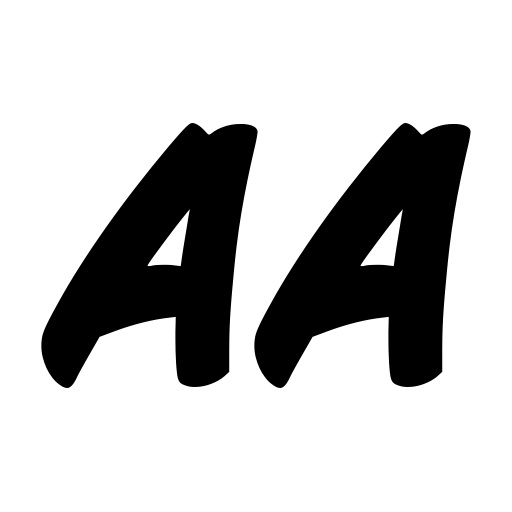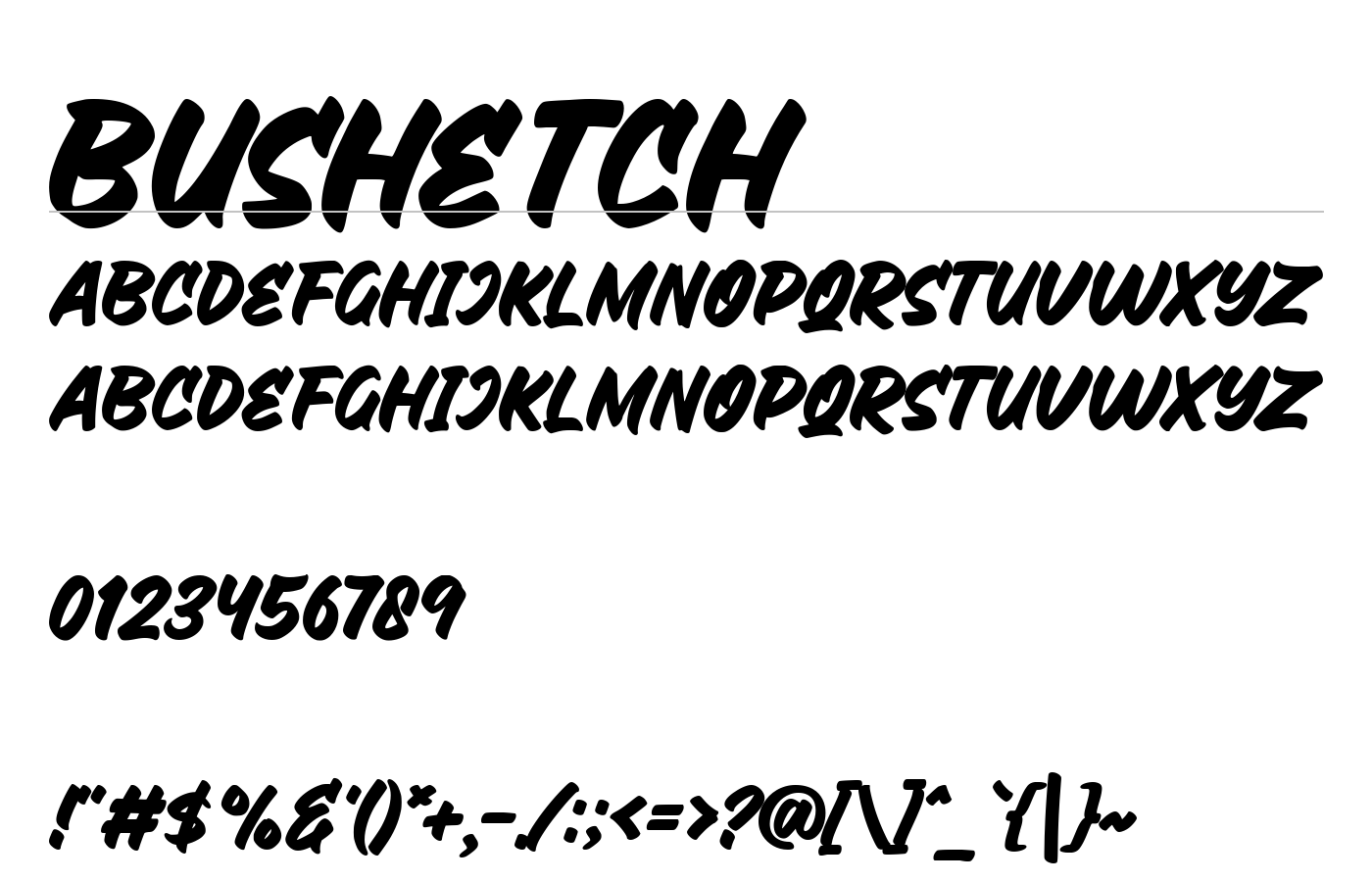
Bushetch is a bold, lively brush script font that conveys energy and casual charm with its thick, dynamic strokes and slightly condensed letterforms. Its smooth curves and playful, hand-painted style make it ideal for projects seeking a fun, informal vibe such as creative branding, posters, and headlines that need a personal touch. This font shines in designs where a spirited and approachable feel is desired, especially for youth-oriented or artistic themes.
Bushetch Font
About Bushetch Font